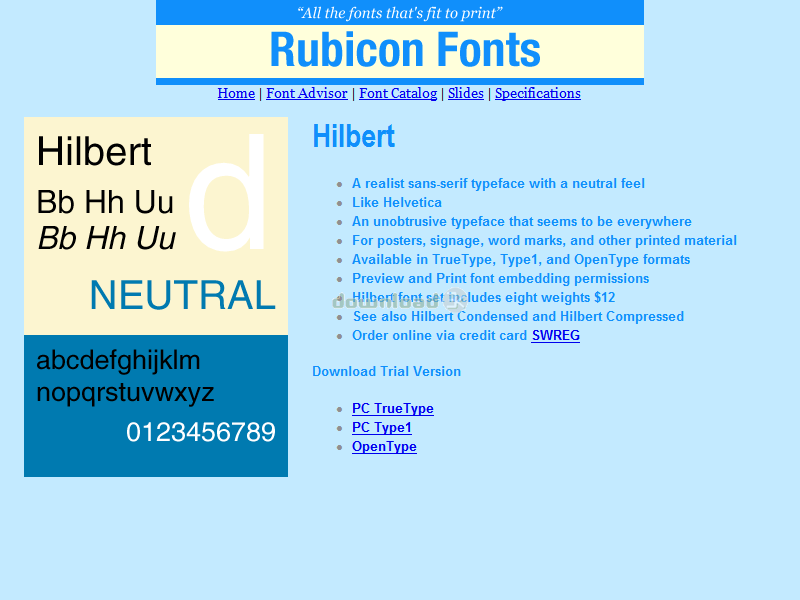
"Realist sans serif font, neutral feel"
Rubicon Hilbert Fonts. Realist sans serif font with a neutral feel. Like Helvetica. An unobtrusive typeface that seems to be everywhere. An all purpose design, great for posters, signage, corporate word marks, and other graphic material. Now in Truetype, Type1, and OpenType formats. Accurate and hinted, matching font metrics, standard character set, kerning pairs. Professional print quality for inkjet, laser, typesetter to 3500 dpi. Purchasers receive 8 font variants as follows: Light, Light Oblique, Normal, Oblique, Bold, Bold Oblique, Extrabold, Extrabold Oblique.Requirements: Older versions of Windows require Adobe Type Manager.